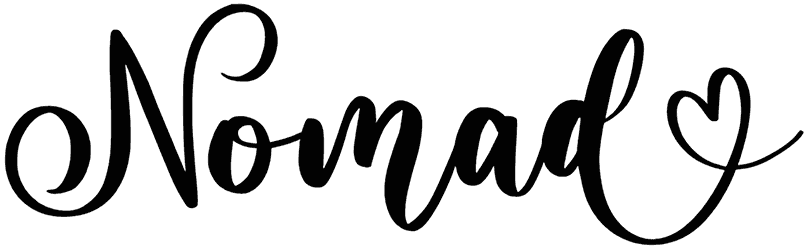
Nomad Font
If you are on the verge of launching a new graphic project like branding, stationery, gift cards, business cards, or illustrations that require a handwritten personalized touch, a playful script font like Nomad can be really helpful. Due to its cursive style and sophisticated flow, this heart font can bring a sense of professionalism, precision, momentum, or vitality to your work.